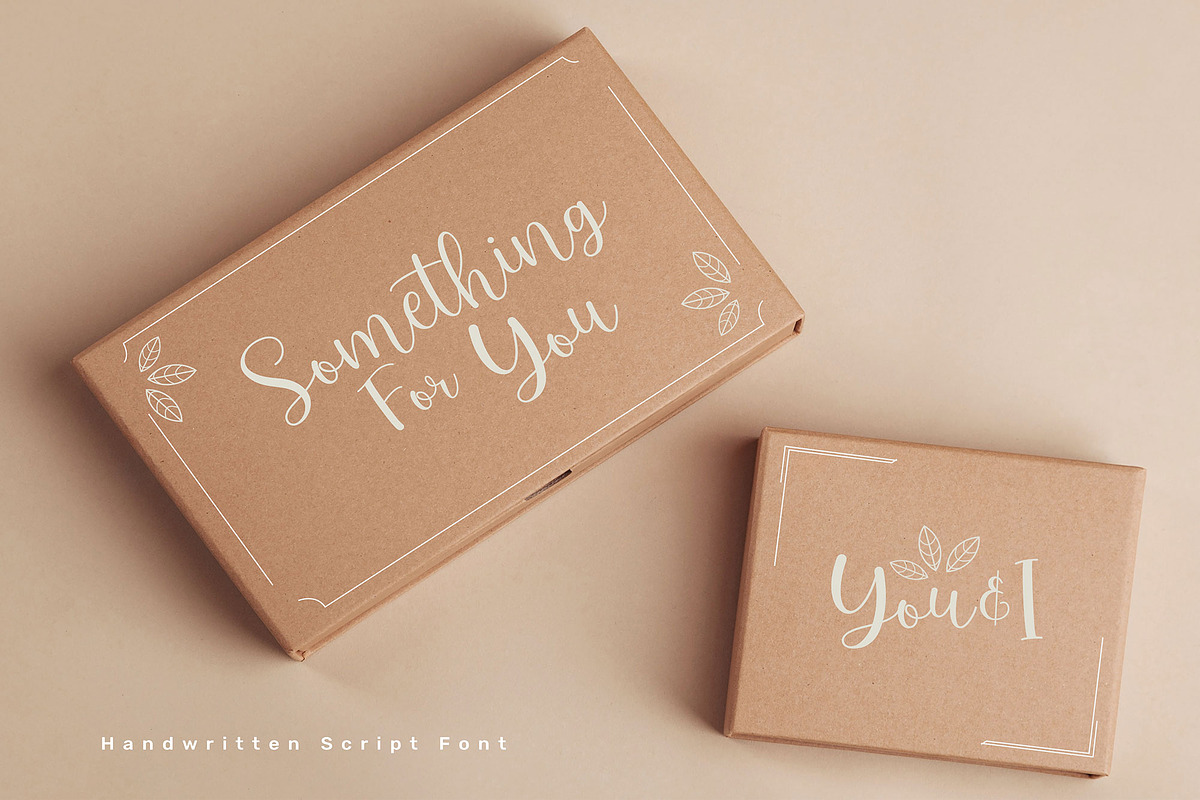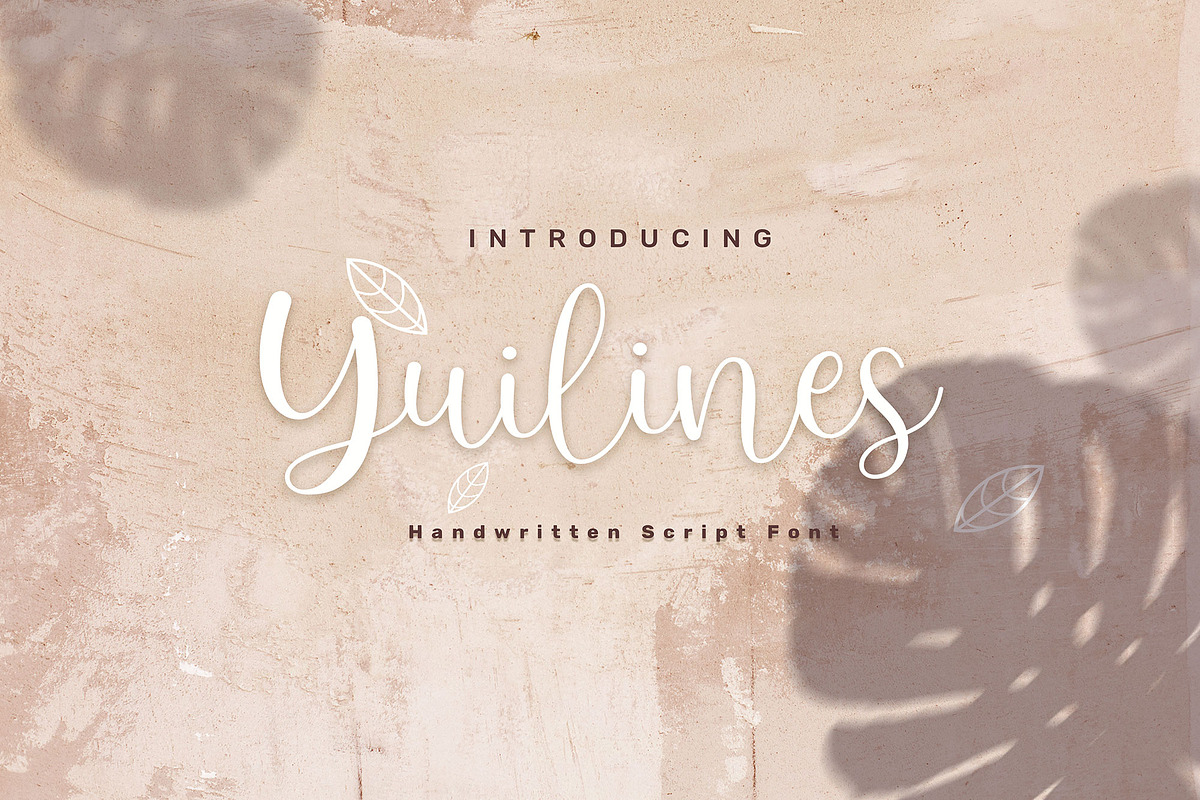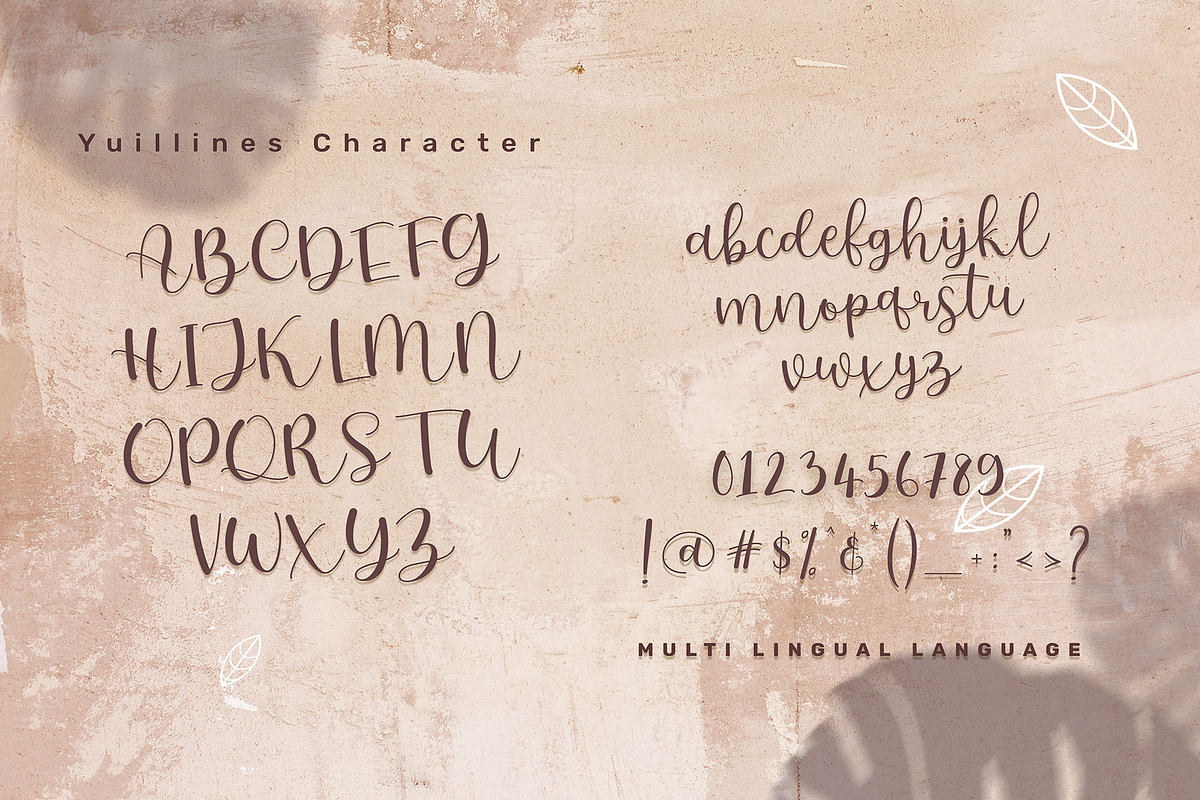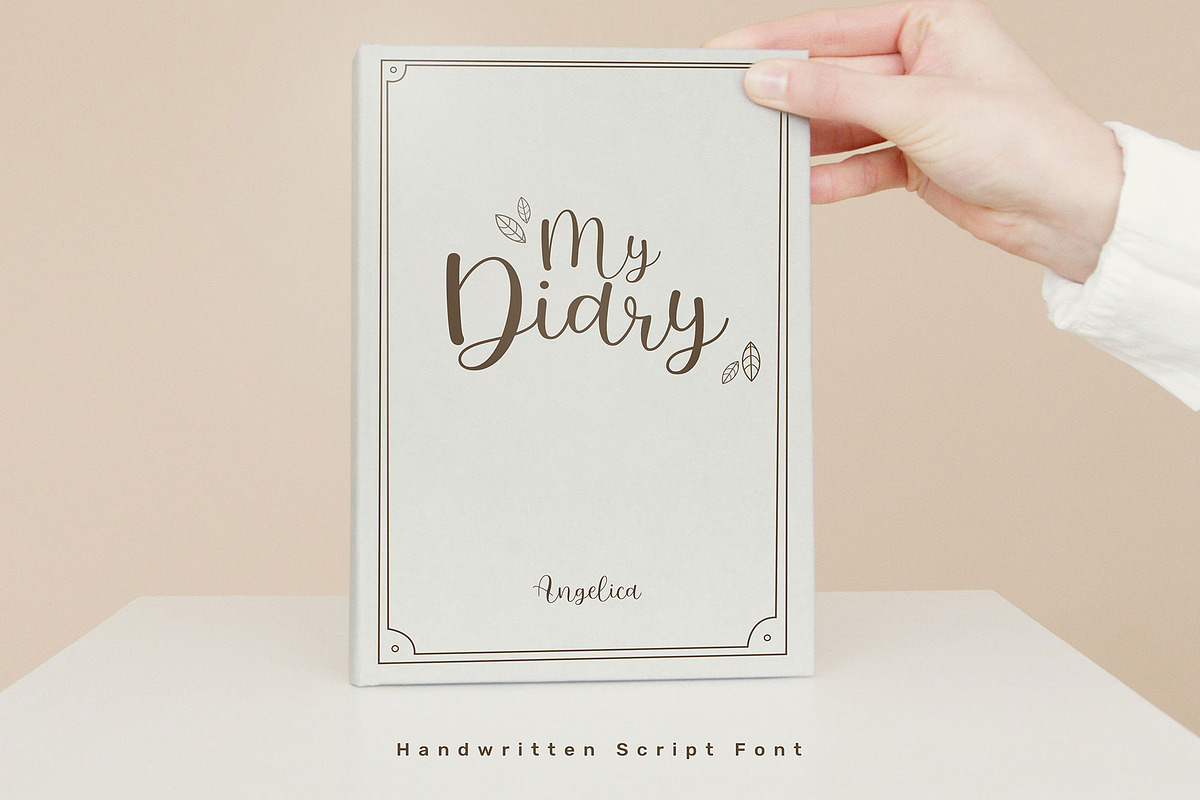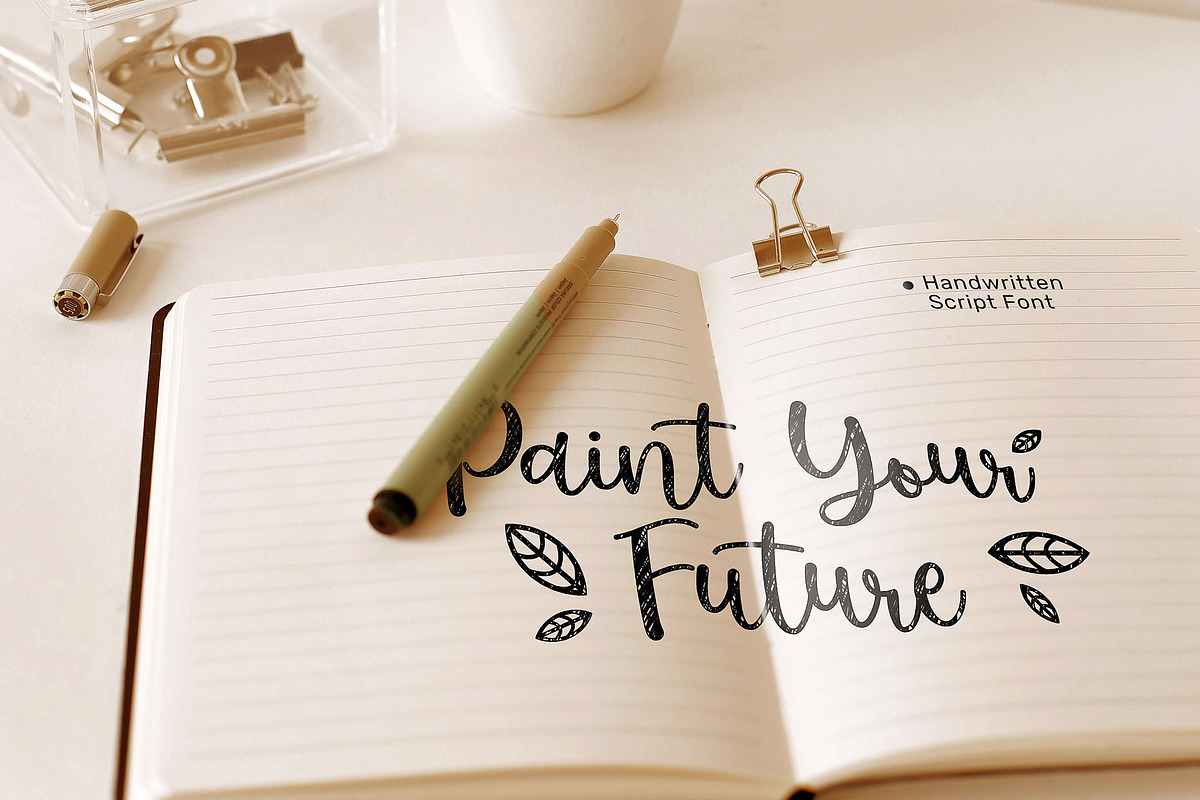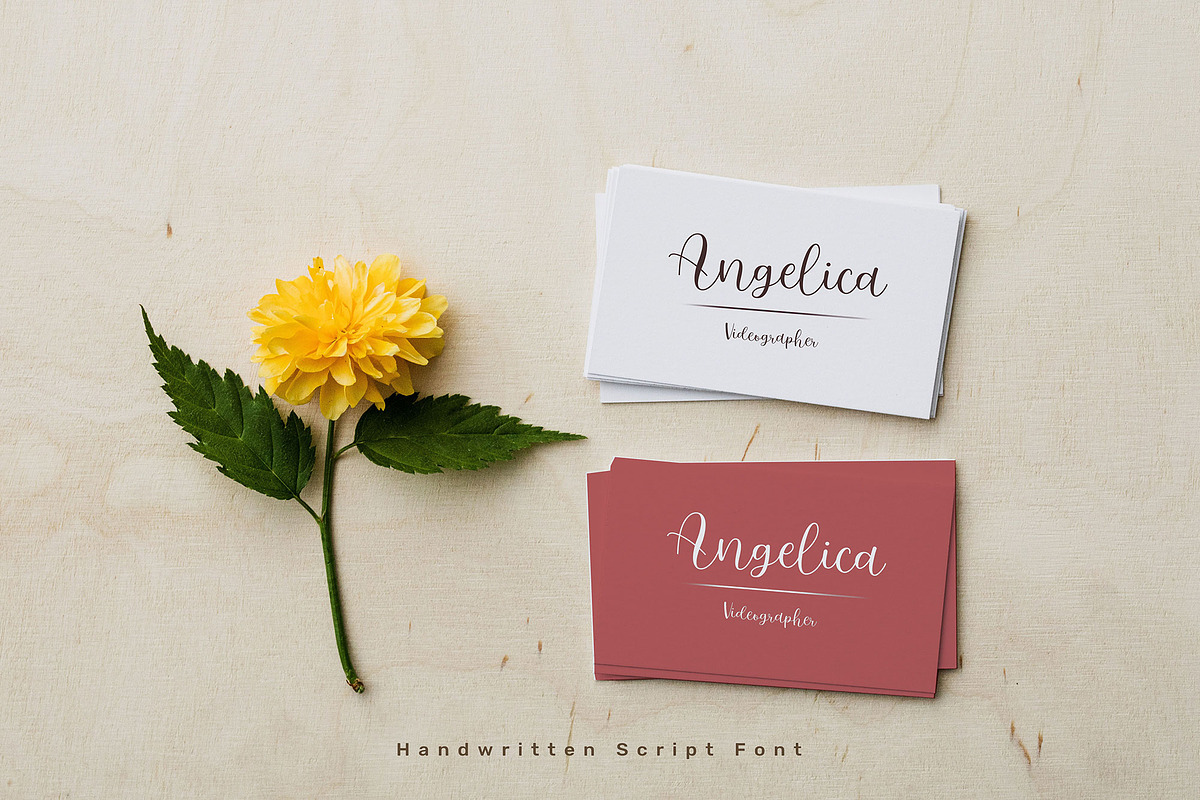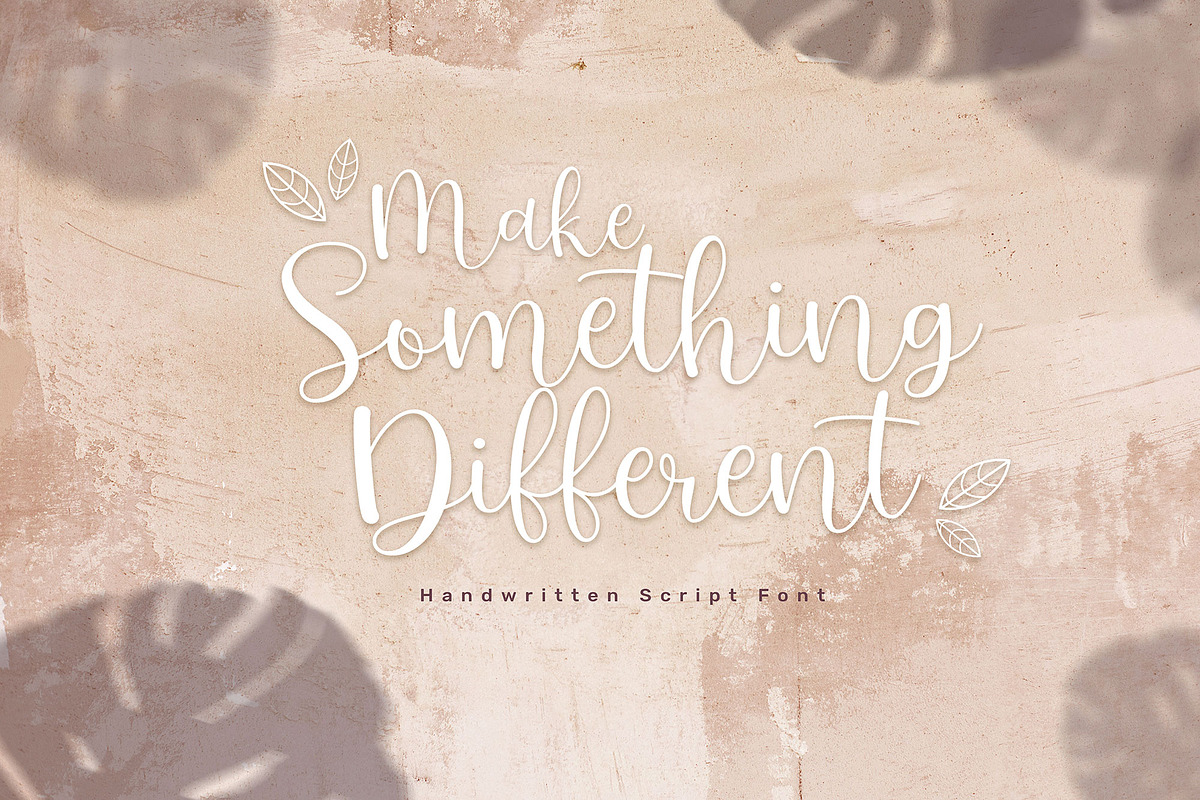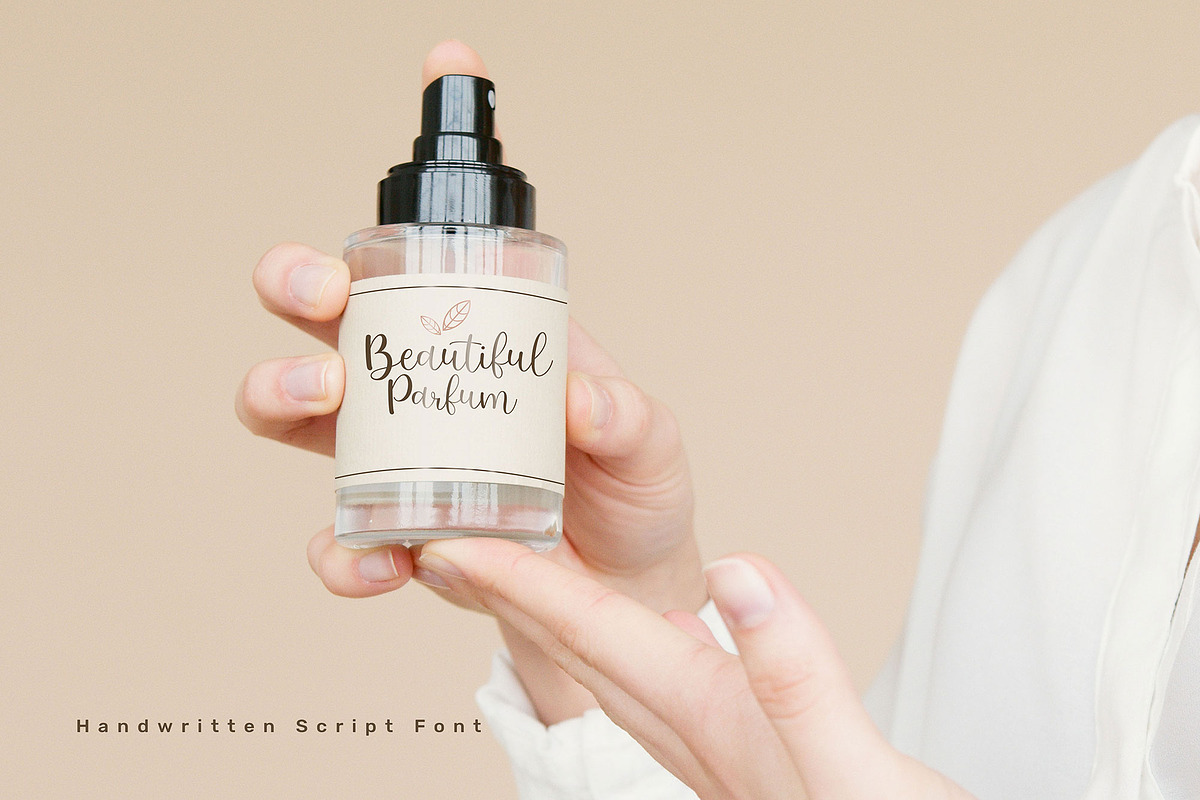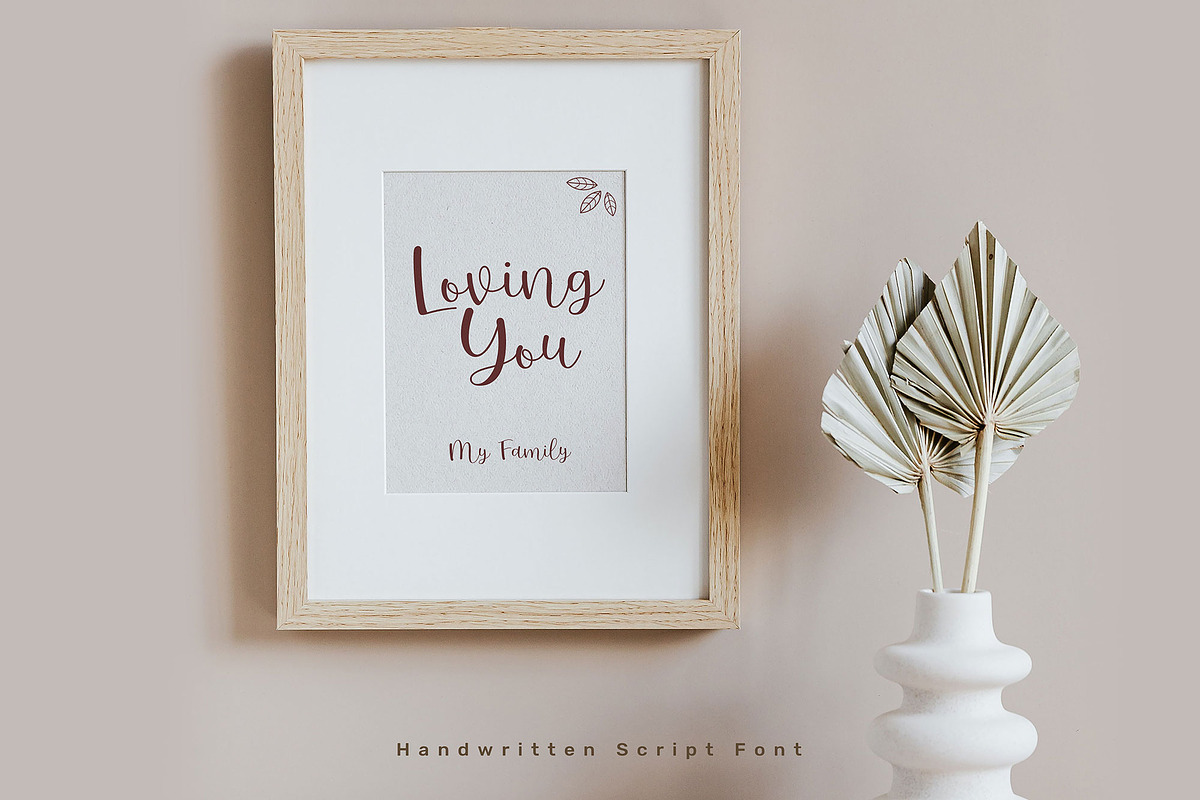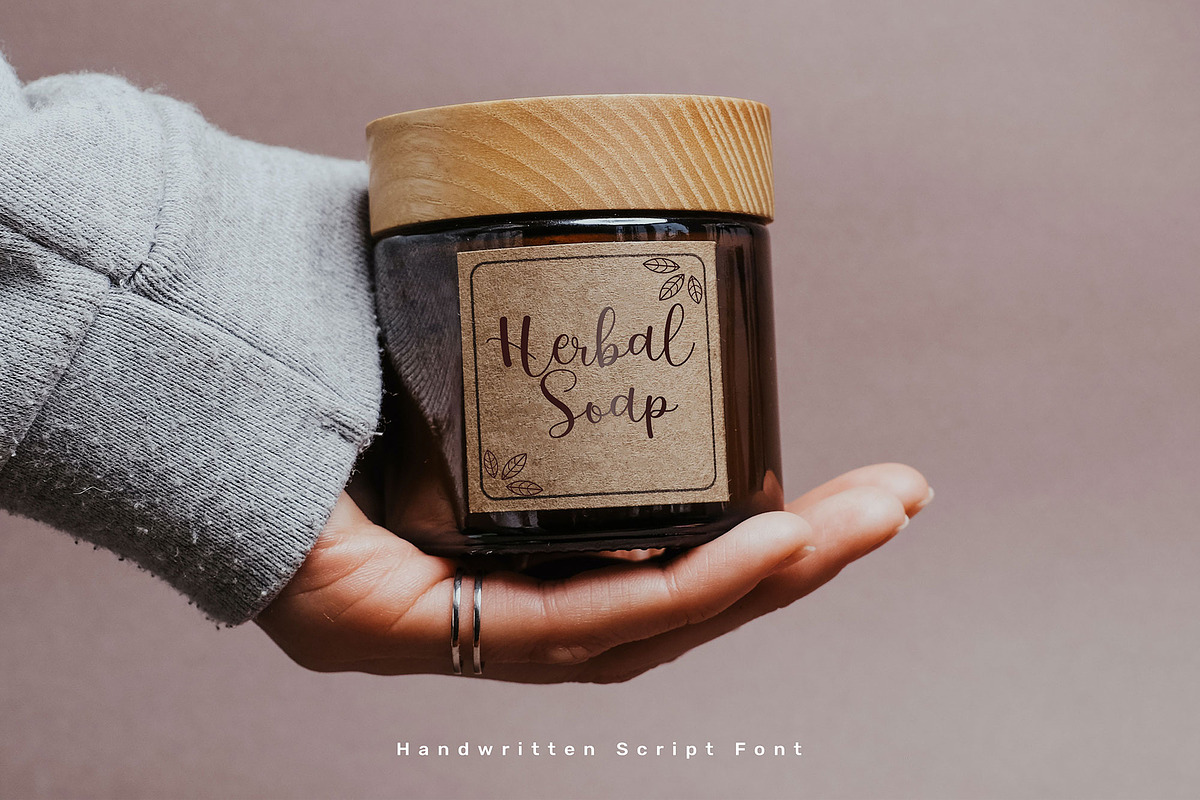
Yuilines Script
Introducing our new product Yuilines Script Connecting script, designed to convey elegance and style. It is slender, feminine and friendly. Yuilines is perfect for fashion, e-commerce brands, trend blogs, or any business that wants to appear classy and chic.
- Uppercase, lowercase, numeral, punctuation & Symbol
- Stylistic alternates
- Multilingual Language